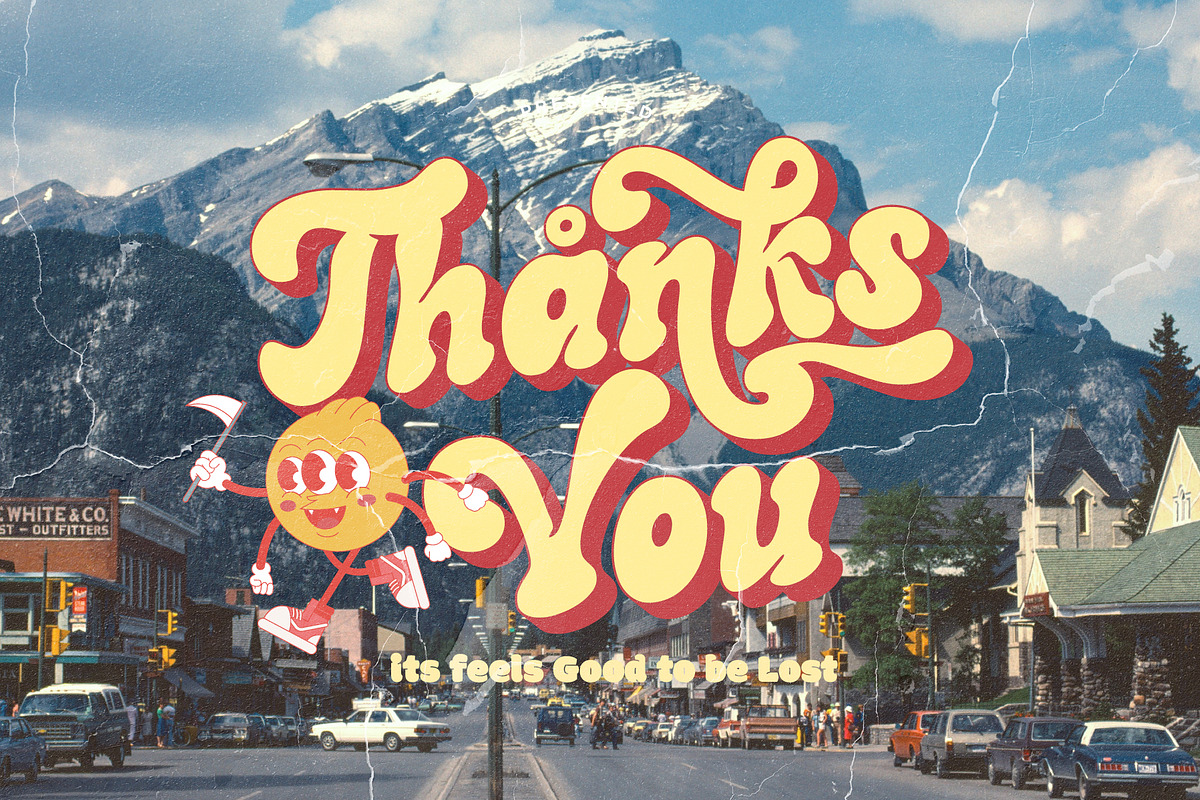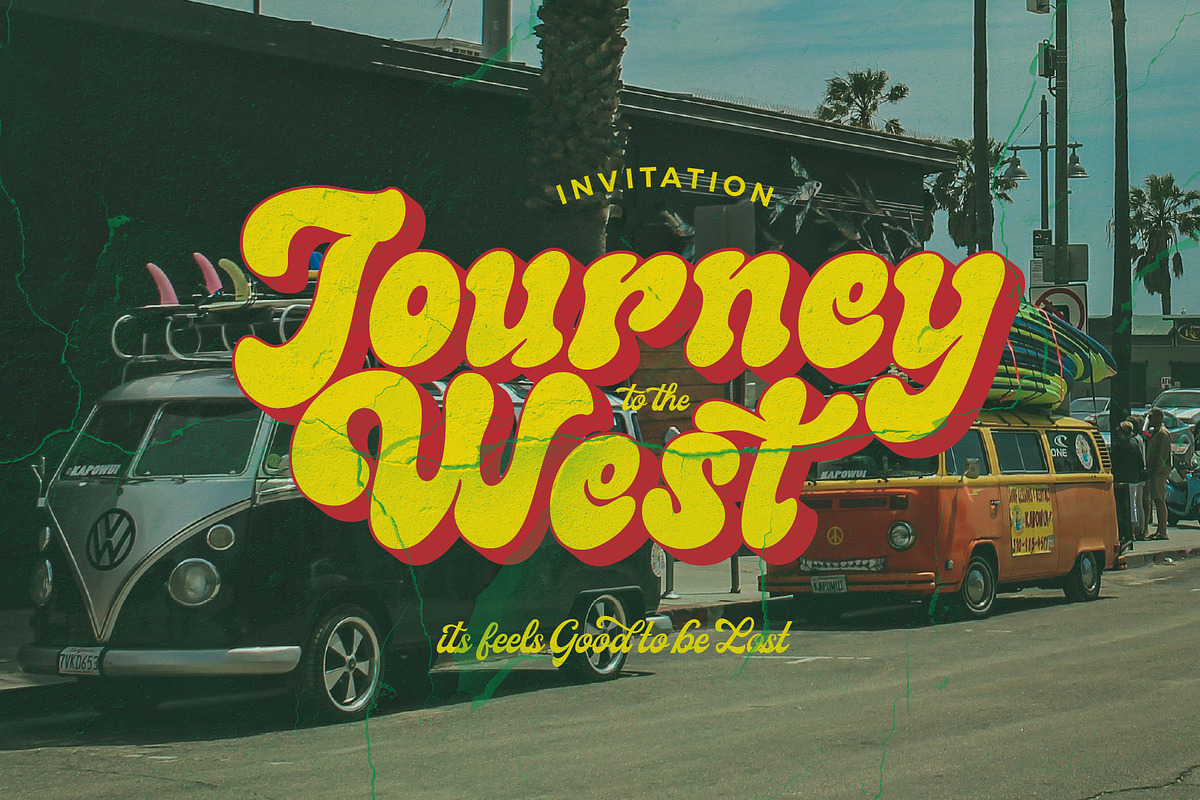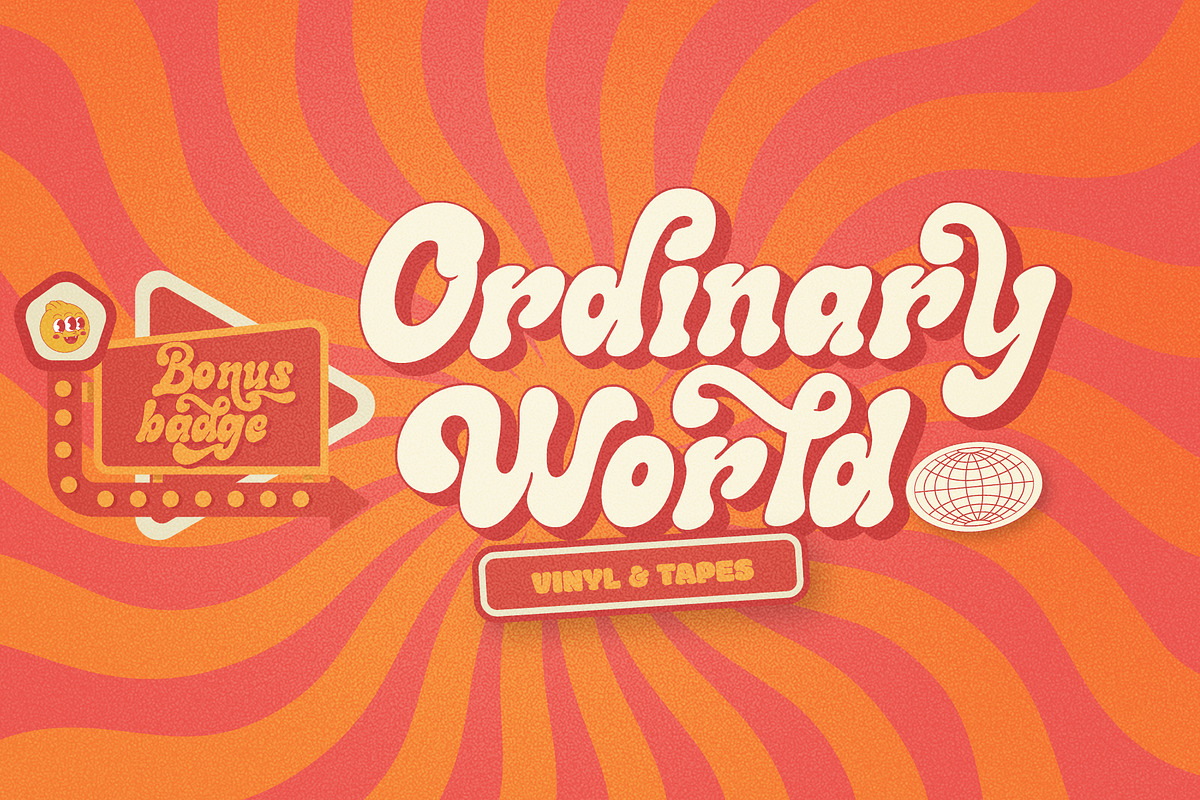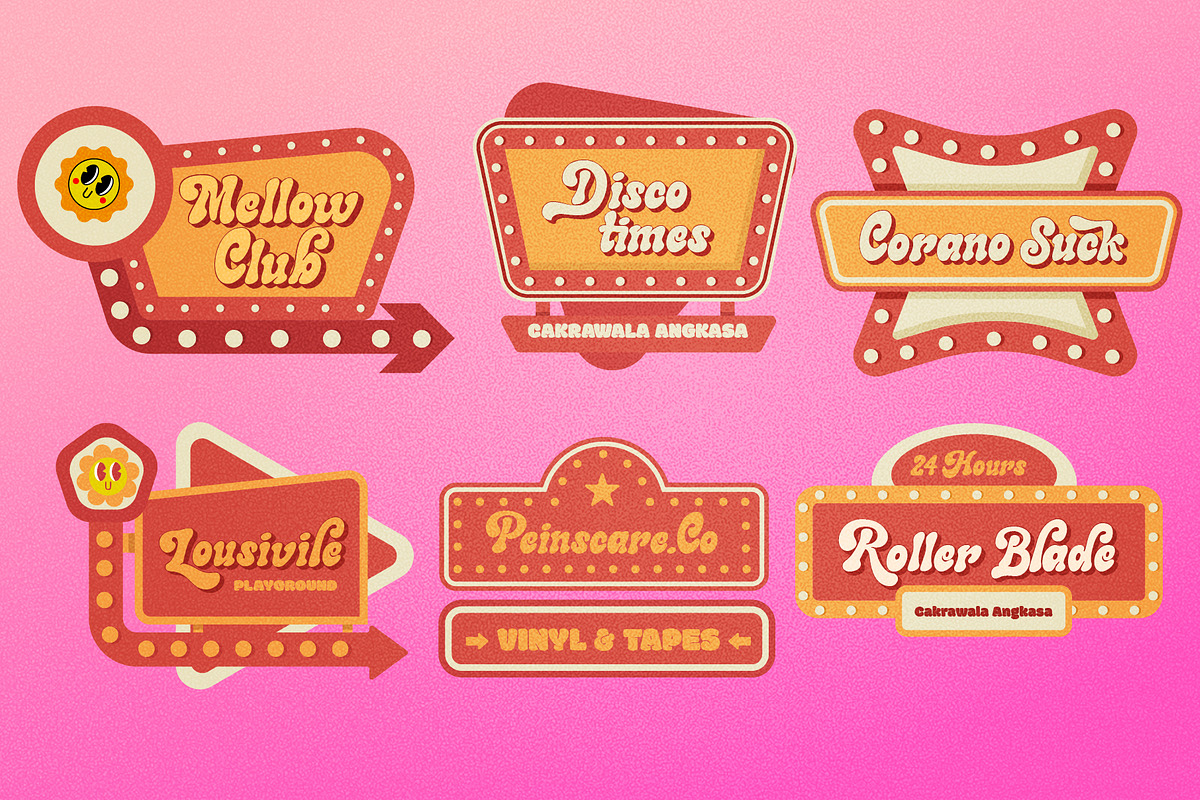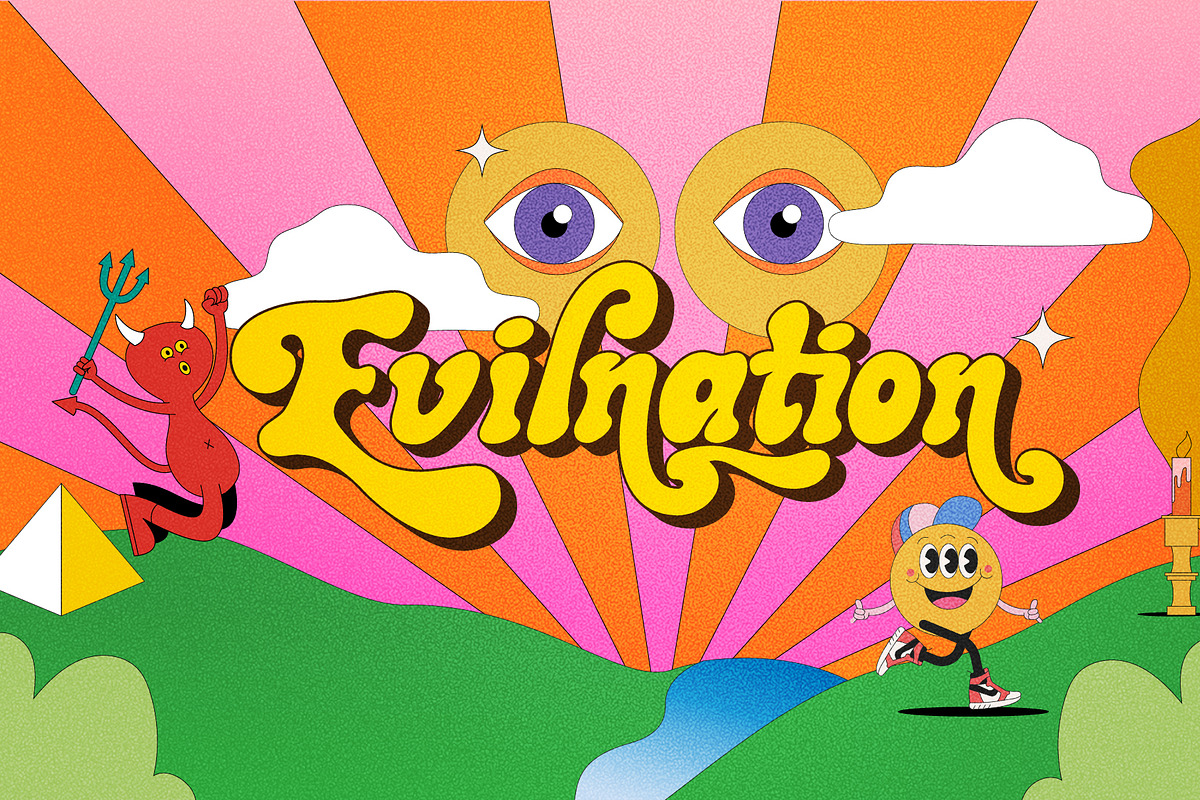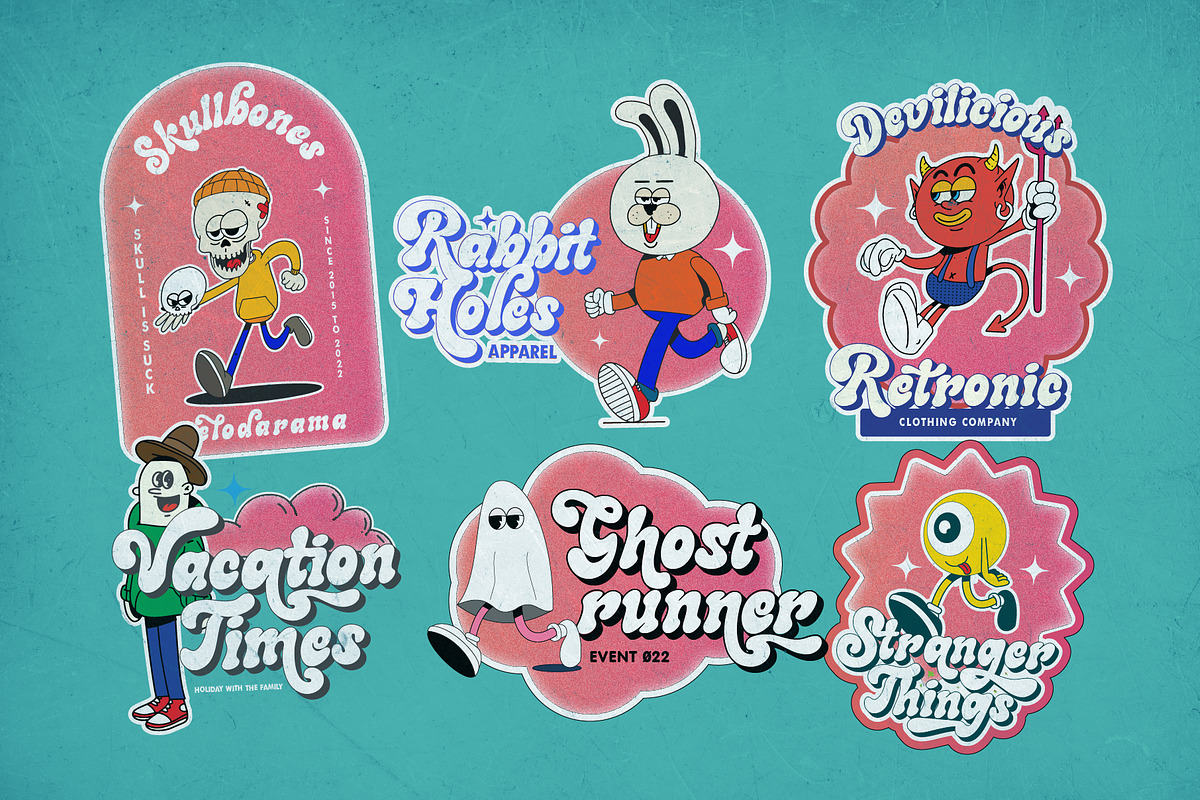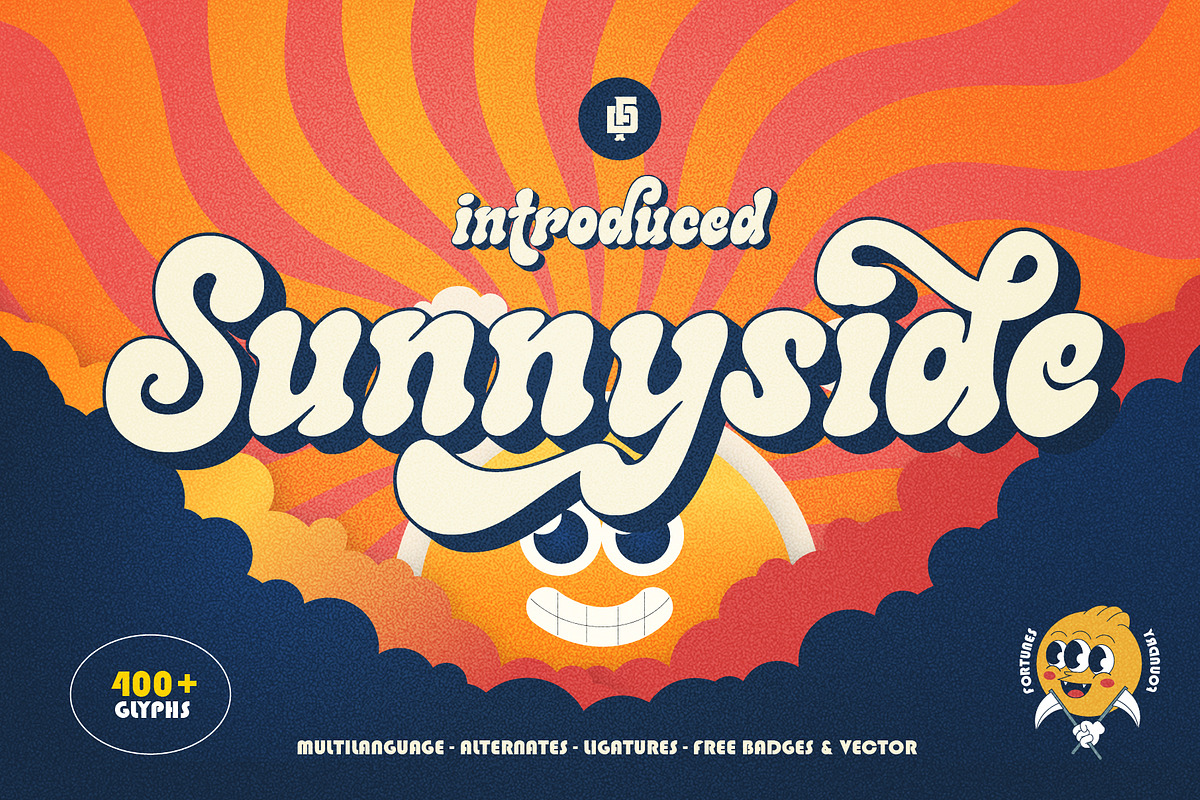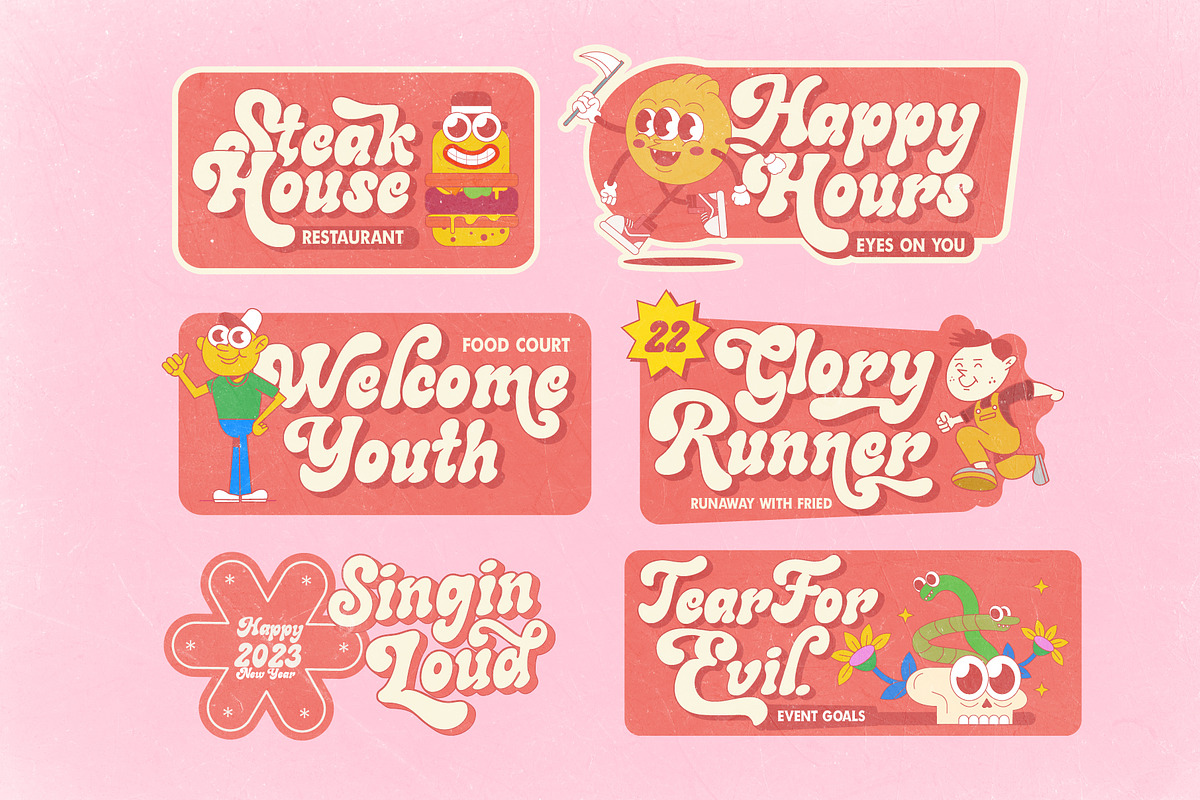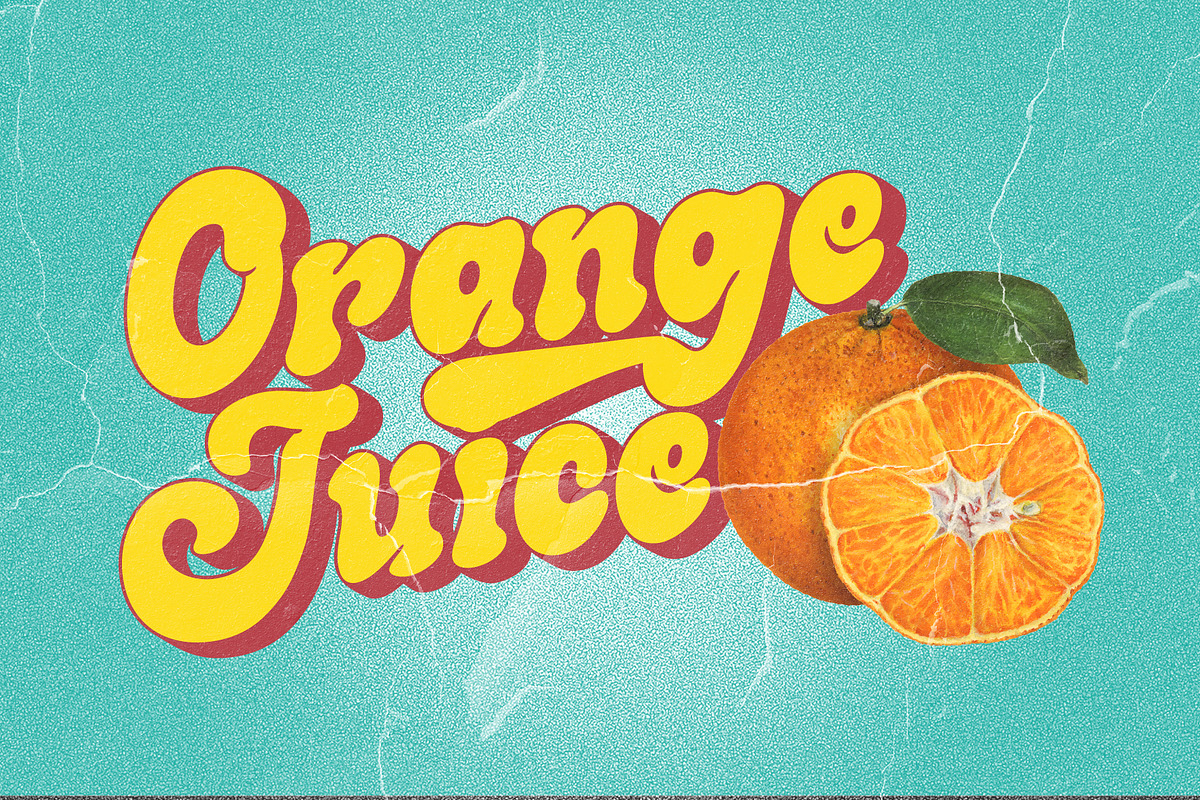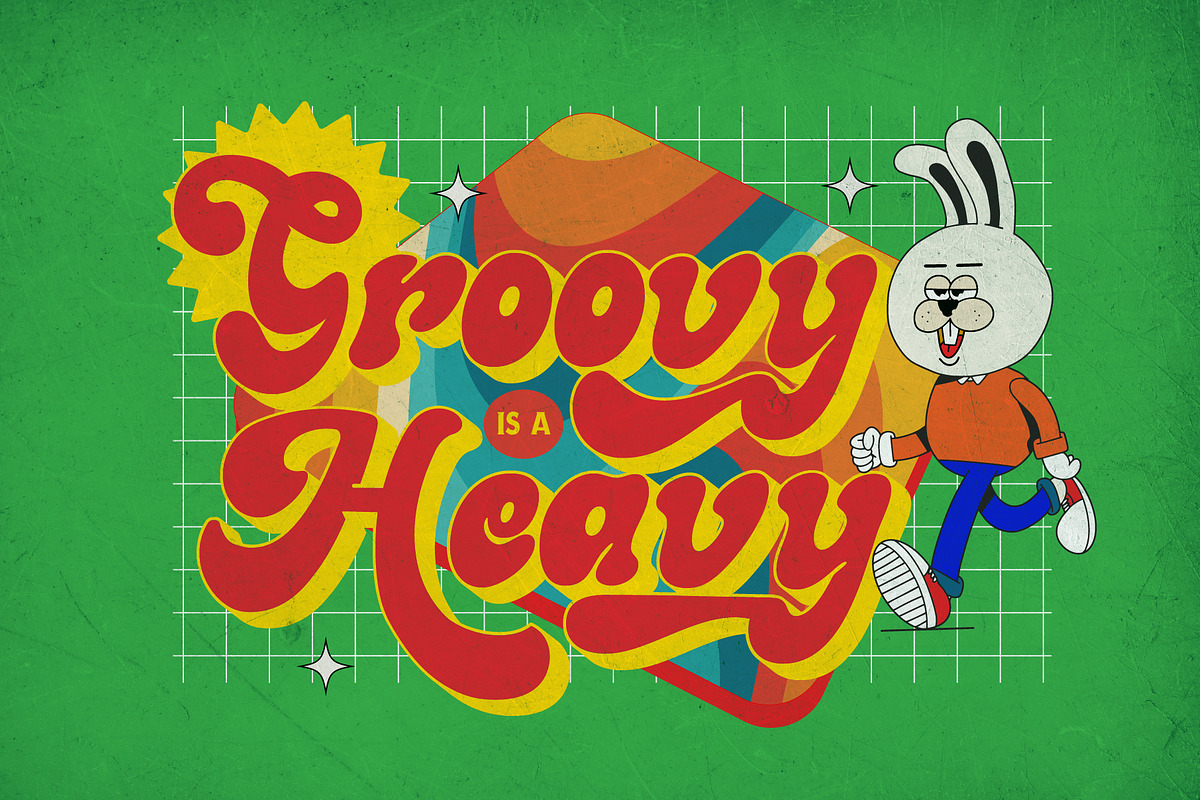
Sunnyside Groovy Font + Extras
Sunnyside is Retro Font duo Regular & Extrude, Sunny is Retri vintage typeface suit for retro 80s theme, suit for cover magazine, brochure, logo, Headline or Quotes, Stand alone display and short paragraph or contents. Each font in the family can stand on its own, dynamic and authoritative in their own right refer display.
- Ligatures ff, fi, fl, it, rx, st, tti, ti, tm, tt, Ch, St, ft, ift, ffi, ffl
- Support Multilanguage
- Numbering & Punctual